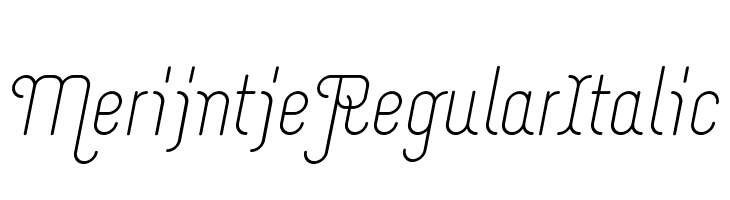
( Studio Dot by dot - Sjoerd Kulsdom - www.dotbydot.nl/fonts )
A modern, elegant font with slender, italicized characters and smooth strokes.
( Studio Dot by dot - Sjoerd Kulsdom - www.dotbydot.nl/fonts )
A delicate, flowing font with elongated, slanted characters and a modern, airy feel.